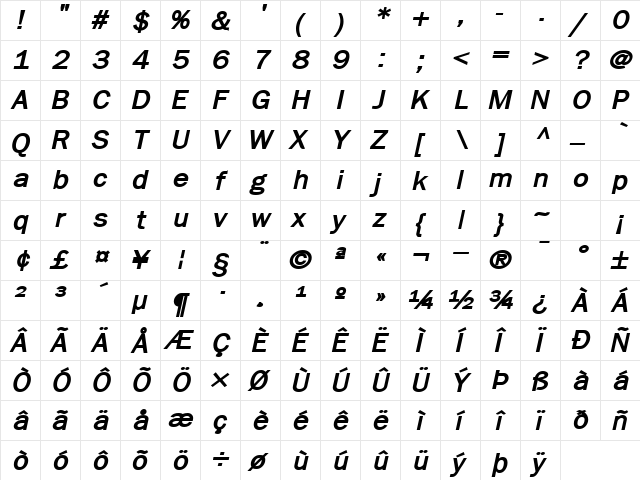
LibraryGothicExtraBold Italic Font Preview
LibraryGothicExtraBold Italic
LibraryGothicExtraBold Italic Font Details
Design Context for LibraryGothicExtraBold Typeface
LibraryGothicExtraBold has the quiet confidence of well-executed sans-serif typography: versatile, unobtrusive, and dependable at any size. The slanted form adds forward momentum and visual energy. Its bold stroke weight gives it real presence on the page.
Well-suited to navigation labels, product packaging, and anywhere legibility at scale is essential.
Font Pairing: Use LibraryGothicExtraBold for headlines alongside a lighter-weight sans or serif for body copy to establish clear visual hierarchy.
Pro Tip: Use LibraryGothicExtraBold for UI labels, navigation, and short-form body copy where clean legibility is the priority.